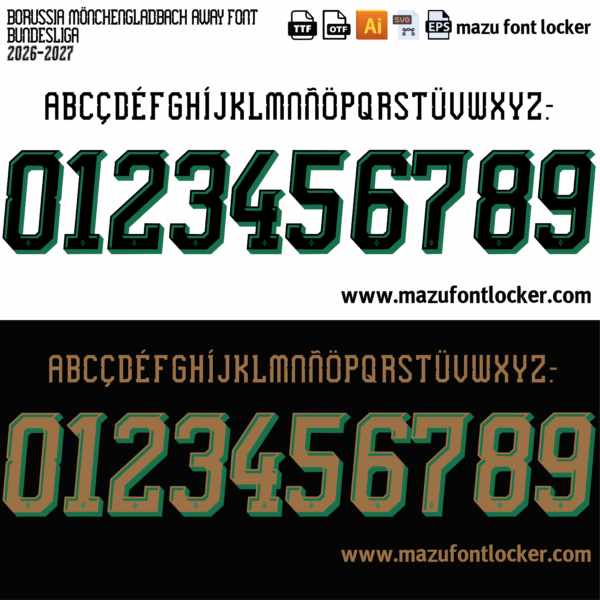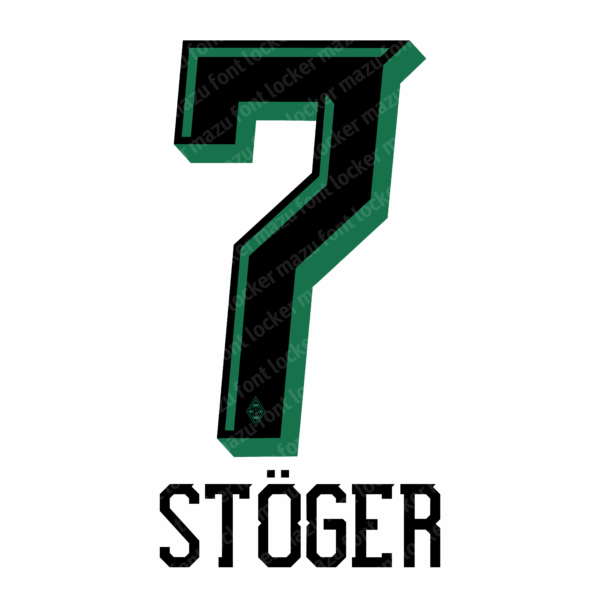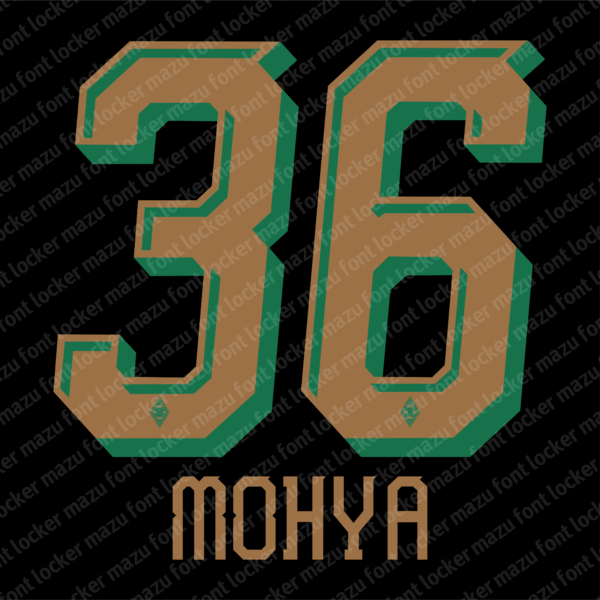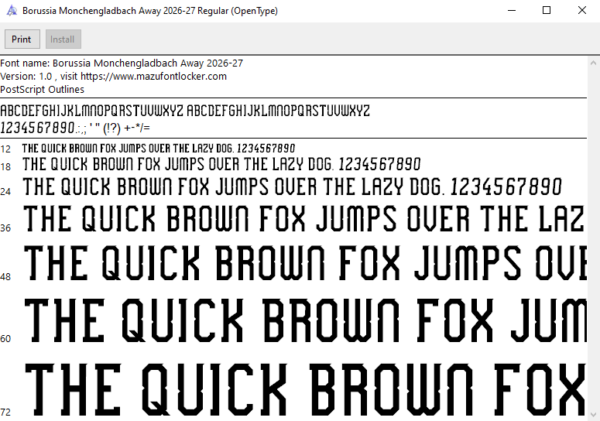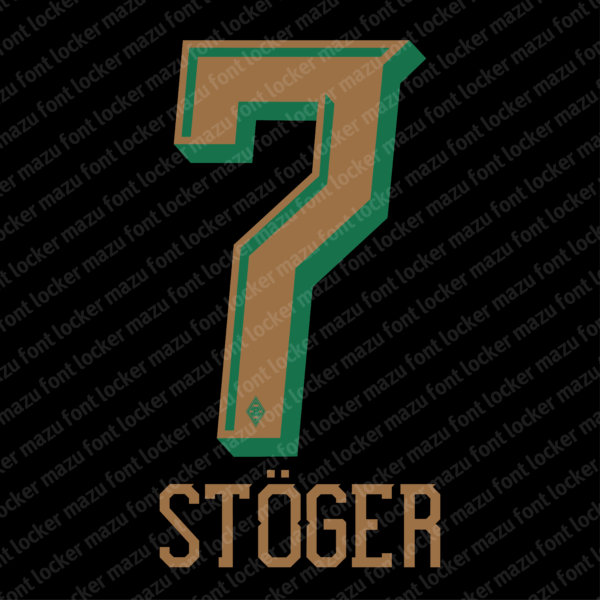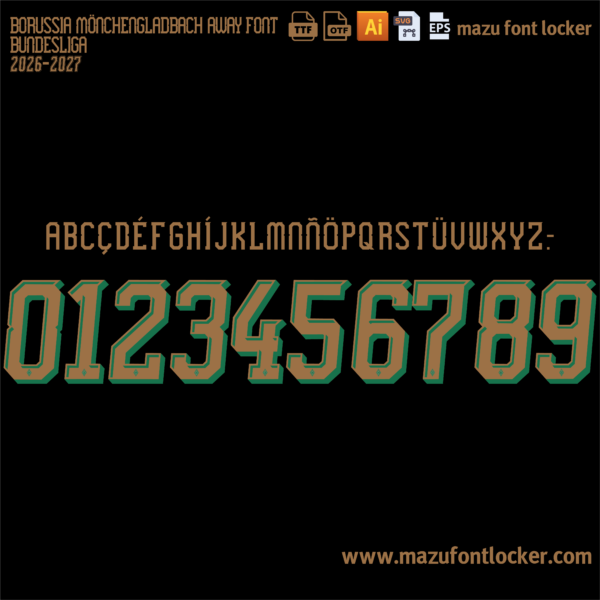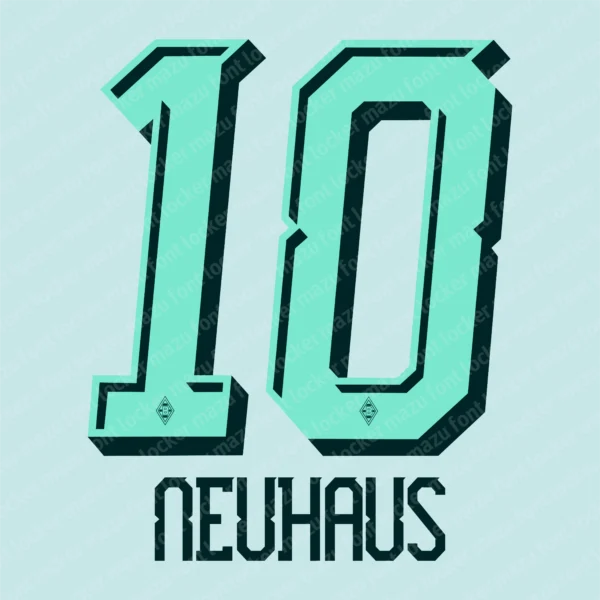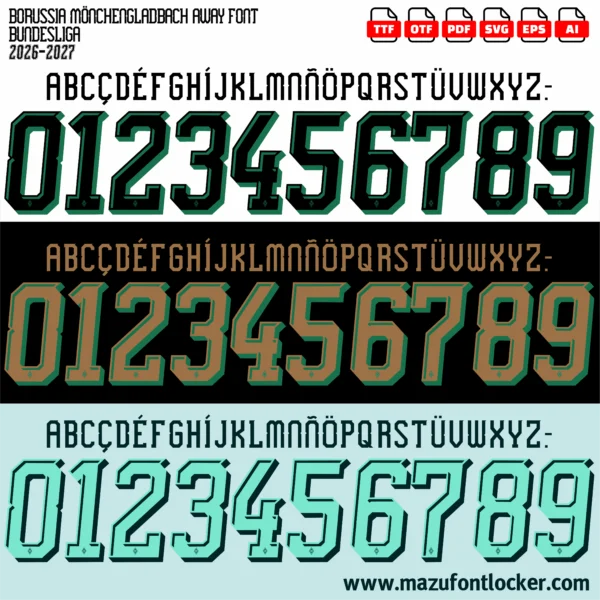
Borussia Monchengladbach 2026-2027 Font Vector – Bold Bundesliga Power
Download authentic Borussia Monchengladbach 2026-2027 Font! This premium official replica captures the bold, modern, and aggressive lettering and numbering from Borussia Monchengladbach’s stunning 2026-2027 away kit.
The Borussia Monchengladbach 2026-2027 Font reflects the fighting spirit, passion, and rich heritage of one of Germany’s most beloved clubs. Whether you’re a graphic designer, content creator, or dedicated Gladbach supporter, this high-quality vector font delivers sharp, scalable, and powerful results for both digital and premium print use.
Borussia Monchengladbach 2026-2027 Font Vector
This premium Borussia Monchengladbach 2026-2027 font is a meticulously crafted vector set that accurately replicates the official Puma away kit lettering and numbering for the upcoming 2026-2027 Bundesliga season. Designed for professional graphic designers, football kit creators, content creators, and passionate fans, this font delivers an authentic match-day look for all your creative projects.
The 2026-2027 away kit for Borussia Mönchengladbach features a bold, modern, and slightly aggressive aesthetic with darker tones compared to previous seasons. Our Borussia Monchengladbach 2026-2027 jersey font captures every subtle detail — from the sharp angles of the letters to the precise spacing and thickness of the numbers — giving you a professional result that looks like it came straight from the official kit.
- Complete uppercase A-Z alphabet and 0-9 number set
The Story Behind the 2026-2027 Kit